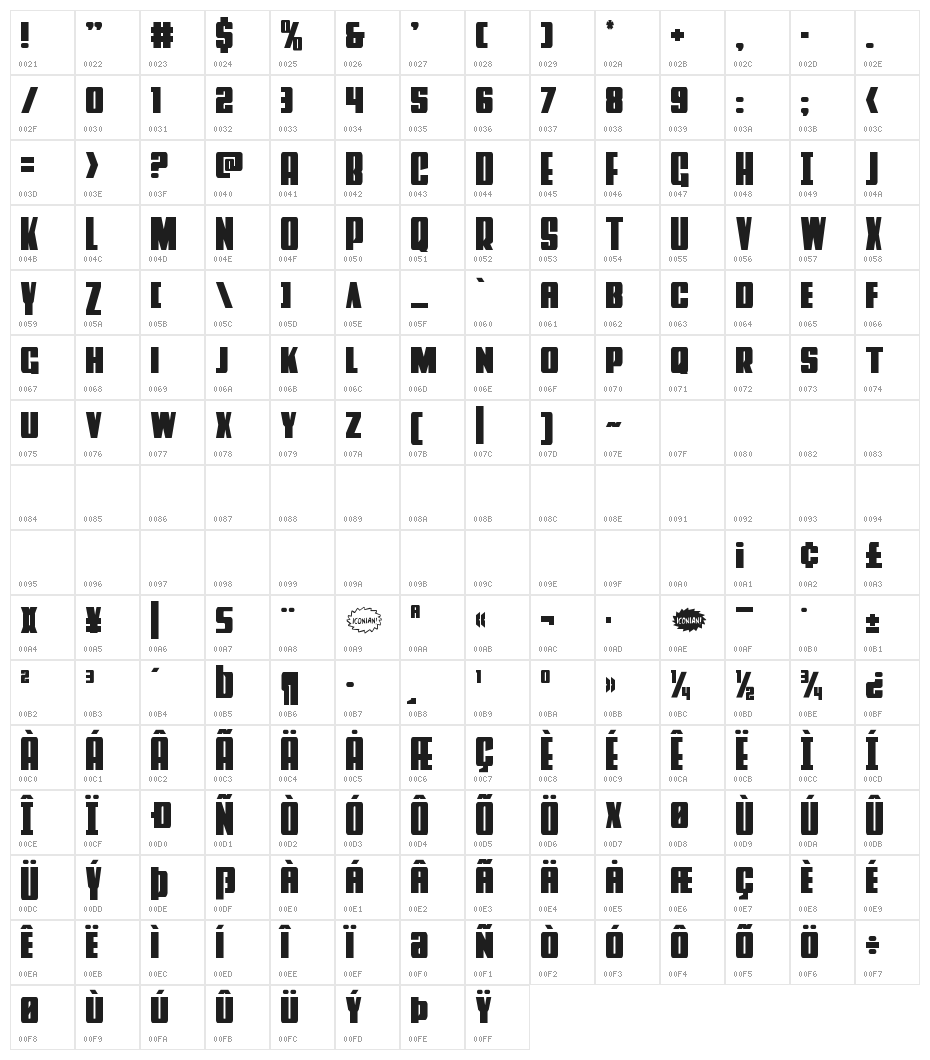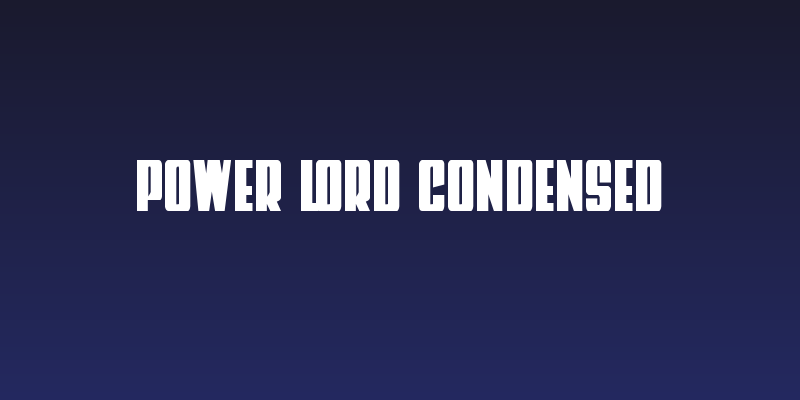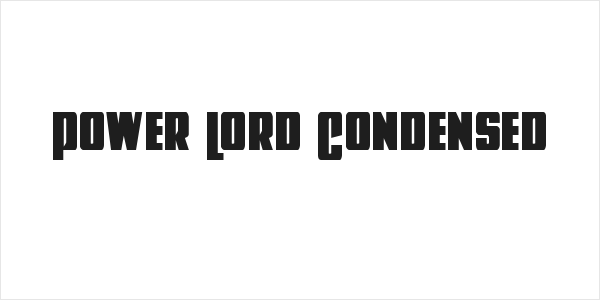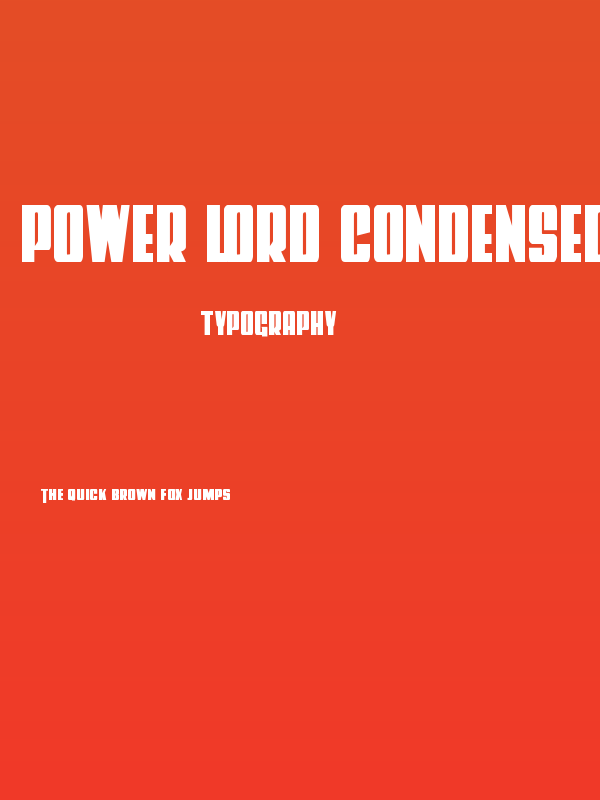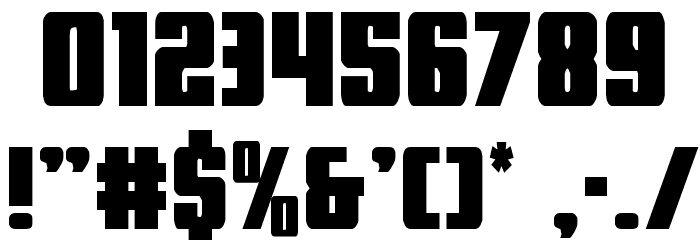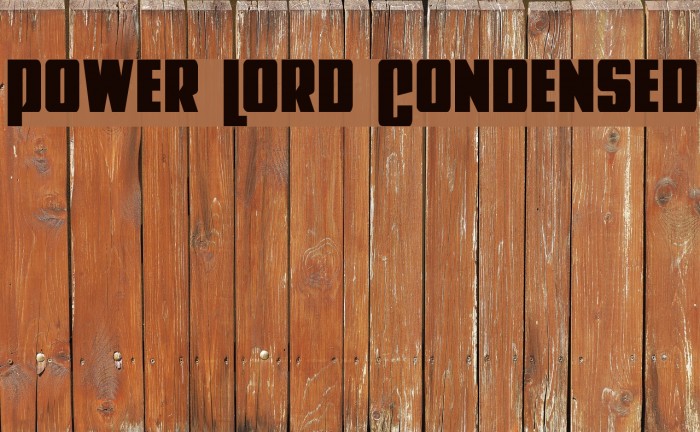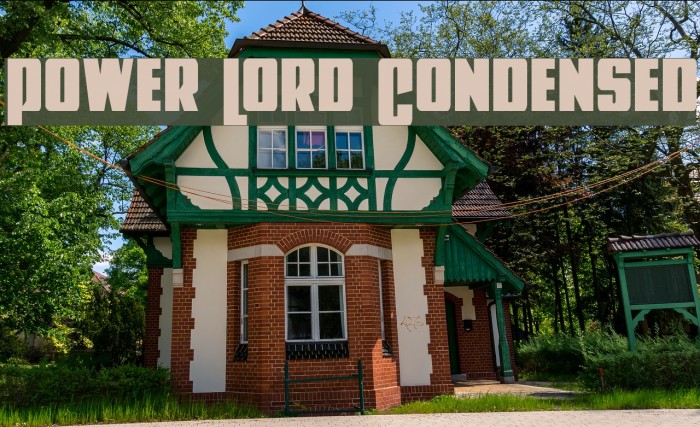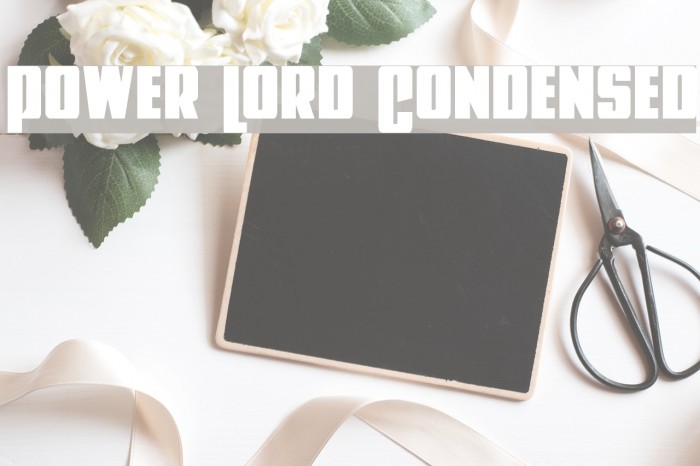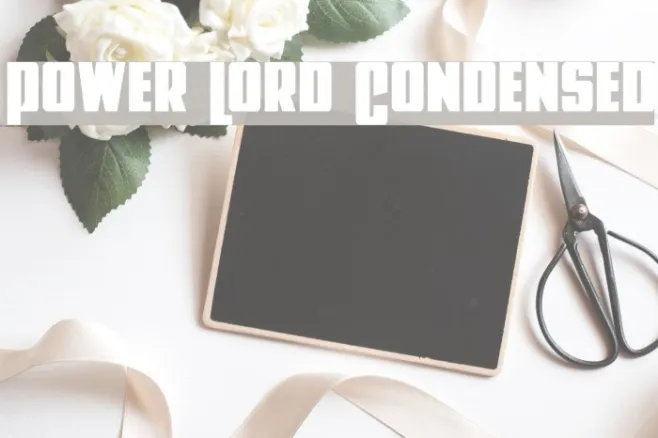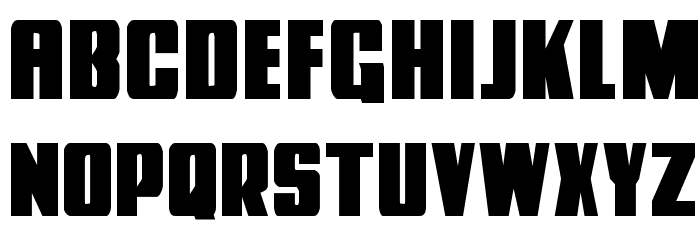
Power Lord Condensed Font
Power Lord Condensed Description
This font features a bold and commanding presence with its condensed letterforms and strong geometric shapes. The uppercase letters are particularly striking, with a uniform height and width that create a sense of stability and power. The numbers and special characters maintain the same boldness, ensuring consistency across all text. The font's design is clean and modern, making it suitable for impactful headlines and attention-grabbing displays. Its condensed nature allows for efficient use of space, making it ideal for projects where space is limited but impact is necessary.